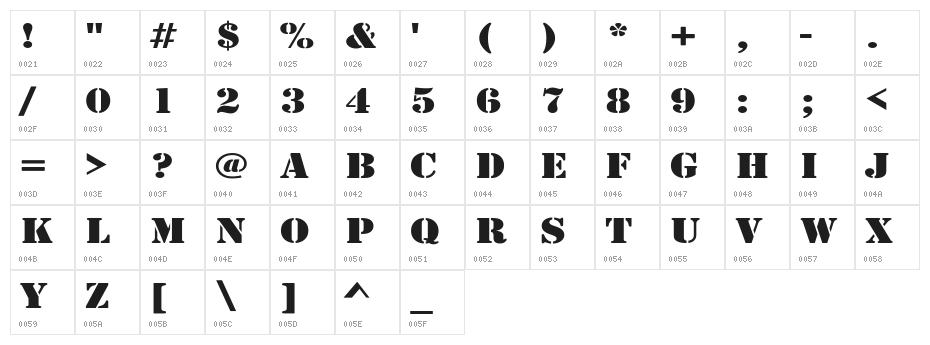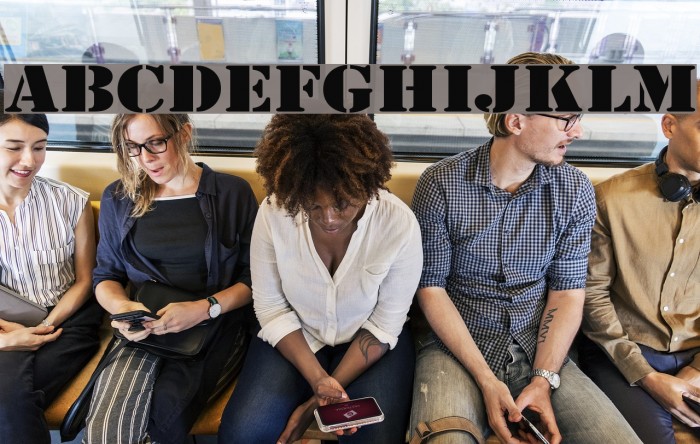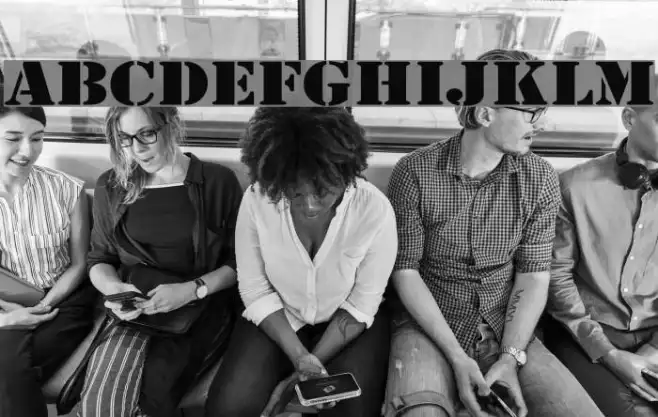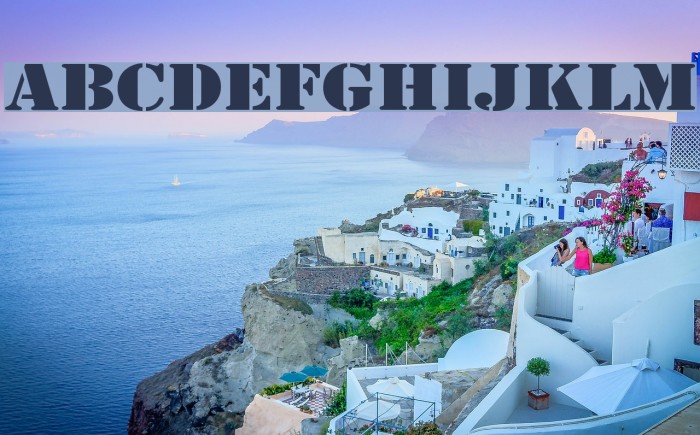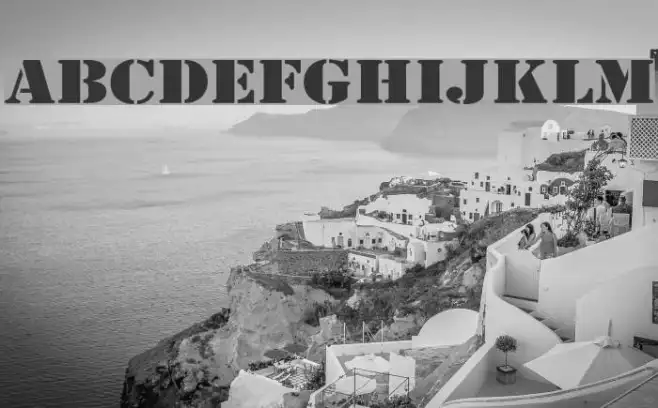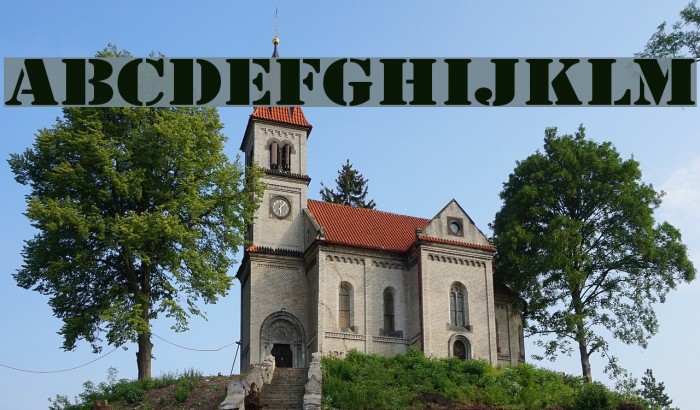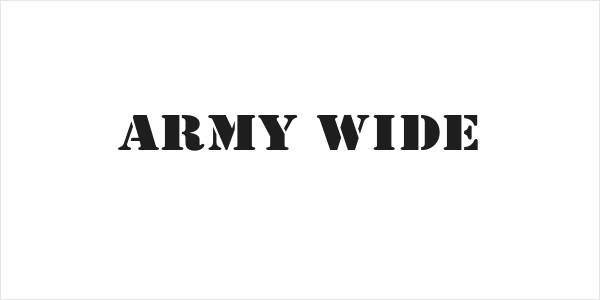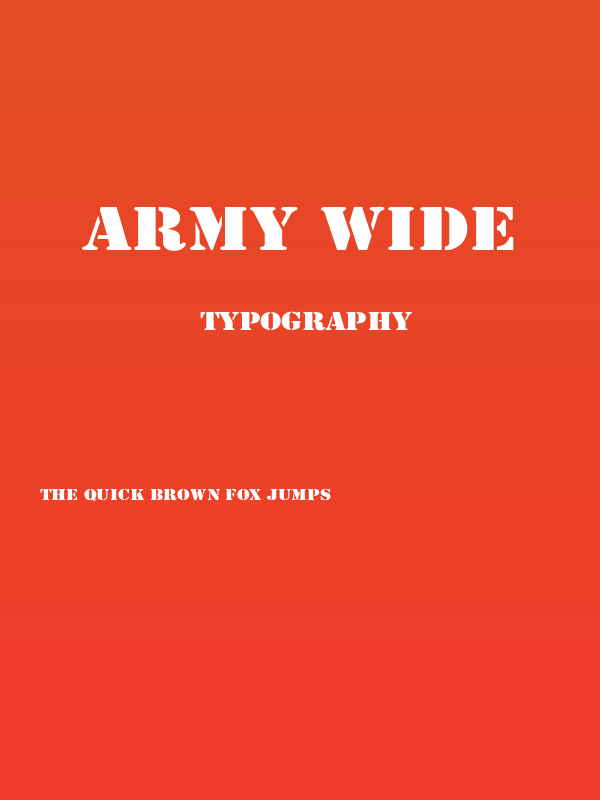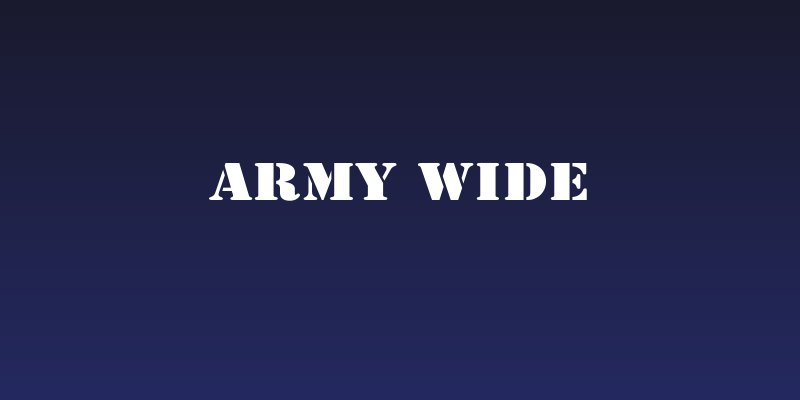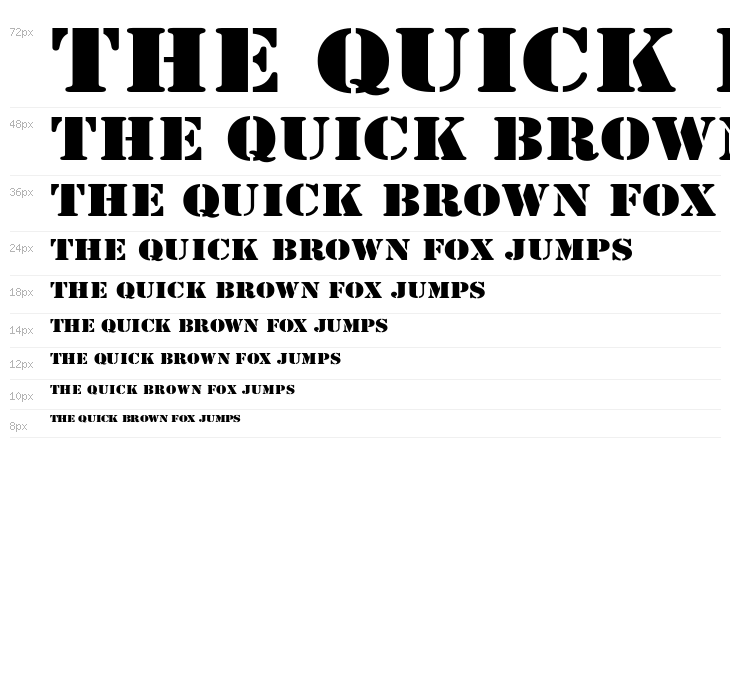
Army Wide Font
Army Wide Description
This font features a bold, stencil-like design, reminiscent of military or industrial themes. The characters are robust and impactful, with distinct cut-out sections that create a sense of ruggedness and strength. The uppercase letters are particularly striking, with a uniformity that suggests discipline and order. The numbers and special characters maintain this bold aesthetic, ensuring consistency across all elements. This font's unique style makes it ideal for projects that require a strong, authoritative presence.
| Proposed Projects | Ideal for military-themed posters, industrial design projects, branding for rugged products, and signage that requires a strong visual impact. |